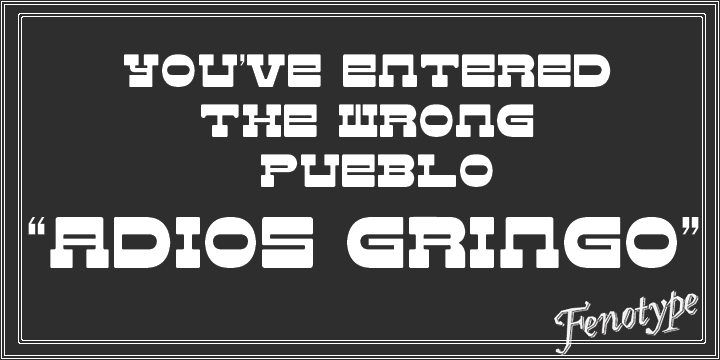
Adios Gringo Font Free Download is a rugged and expressive display typeface inspired by the Wild West and vintage Americana. Perfect for posters, logos, apparel designs, signage, and any project that calls for a bold, rustic vibe.
What makes Adios Gringo Font so exciting is its authentic hand-crafted look combined with sharp, angular details that evoke a sense of adventure and rebellious spirit. It’s designed to stand out and give your designs a distinctive edge.
The Adios Gringo Font family includes Regular and Bold styles, allowing designers to create dynamic typographic compositions with contrast and flair.
Whether you’re working on western-themed branding or edgy promotional materials, Adios Gringo Font Free Download adds character and grit to your typography. You can test it for free, but commercial use requires a license. Say goodbye to boring fonts and hello to Adios Gringo!